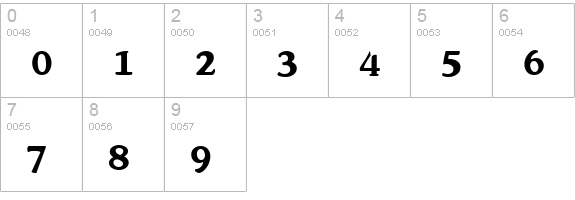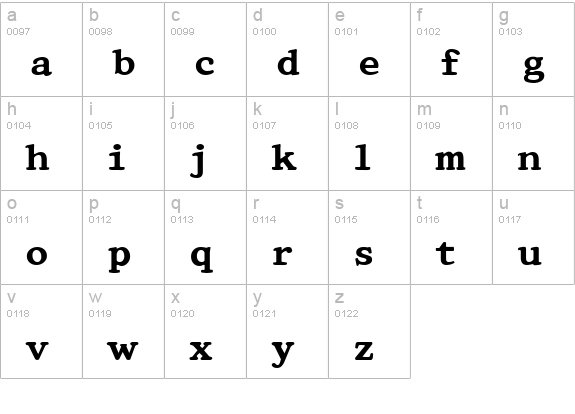
Konstanza Font Details
Below you can preview Konstanza in uppercase [A-Z], lowercase [a-z] and numbers [0-9]. You can also read the author's notes and license information before downloading.
Konstanza font is a beautiful and elegant typeface that exudes sophistication and charm. With its graceful lines and timeless appeal, Konstanza is perfect for adding a touch of class to any design project. This versatile font can be used for a variety of purposes, from branding and advertising to invitations and social media graphics. What makes Konstanza even more appealing is that it is available for free download at FontsMarket.com. This means that you can easily access this stunning font and use it in your projects without any cost. Don't miss out on the opportunity to enhance your designs with the exquisite Konstanza font - download it today and elevate your creations to a whole new level of elegance and style.